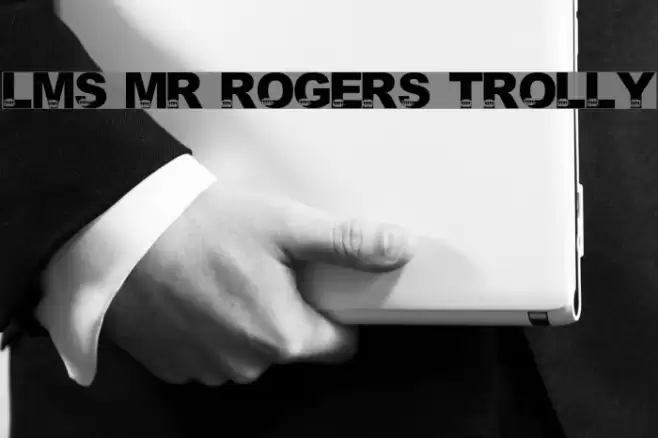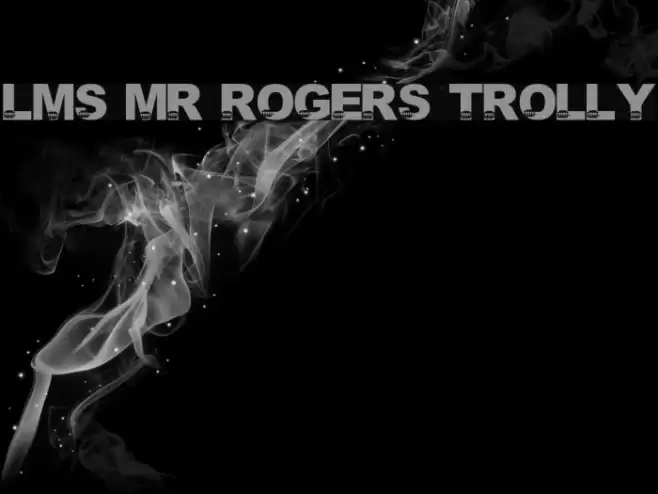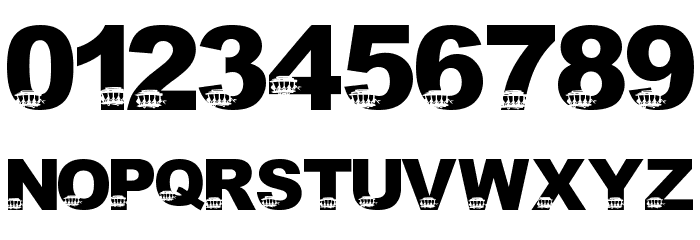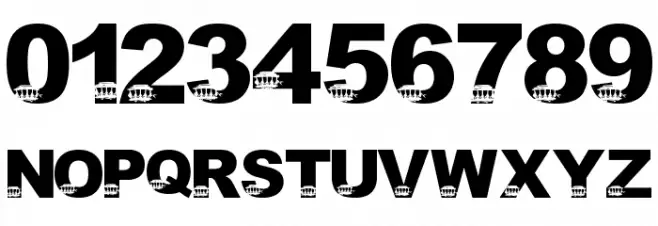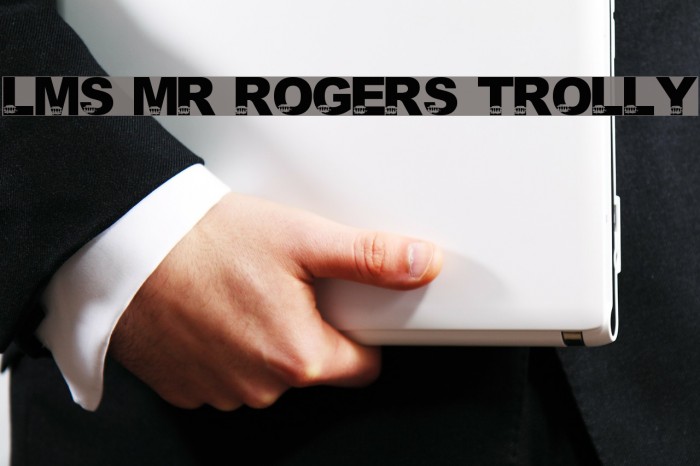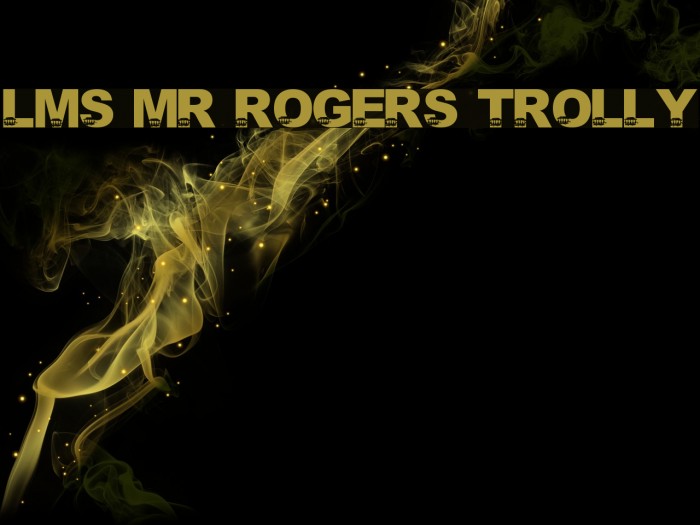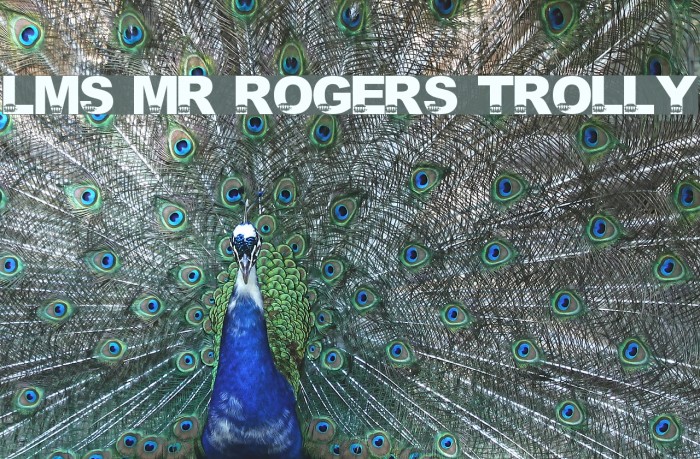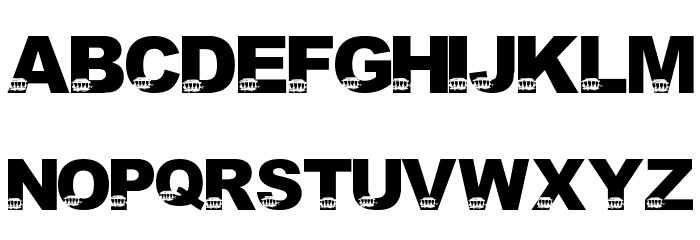
LMS Mr Rogers Trolly Font
LMS Mr Rogers Trolly Description
This font features bold, uppercase letters with a playful and unique design element: each character is adorned with a small trolley graphic at the bottom. The letters are thick and solid, providing a strong visual impact. The trolley motif adds a whimsical touch, making it ideal for projects that require a fun and engaging aesthetic. The font is consistent in its boldness and maintains a uniform width across all characters, ensuring readability while adding a decorative flair.
A bold, playful font with trolley graphics at the base of each letter from Uncategorized fonts.
- Proposed Projects: Ideal for children's book covers, playful posters, themed event invitations, and educational materials.
- Overall Style: Playful, Decorative